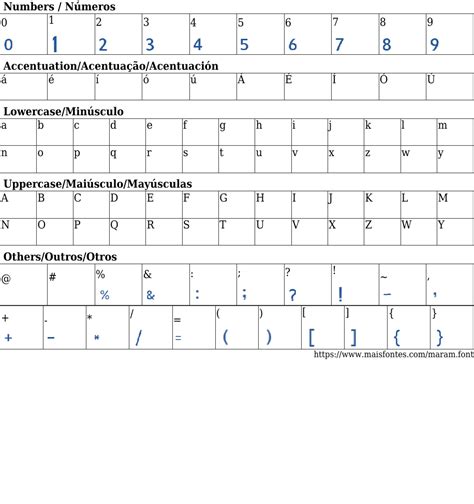
Unveiling The Beauty Of The Maram Font
Hey guys! Ever stumbled upon a font and just thought, “Wow, that’s beautiful”? Well, today, we’re diving deep into one such font: the Maram font . It’s more than just letters on a screen; it’s a piece of art, a form of expression, and a powerful tool for communication. We’ll explore what makes the Maram font so special, its origins, its uses, and why you might want to consider using it in your next project. Trust me, it’s a journey worth taking! So, buckle up, and let’s get started on understanding the Maram font .
Delving into the Details of Maram Font
Alright, let’s get into the nitty-gritty, shall we? The Maram font isn’t just a random collection of characters; it’s a meticulously crafted typeface. The name itself hints at its elegance and subtle charm. Maram, often associated with a sense of grace and refinement, perfectly encapsulates the font’s overall aesthetic. Its design typically features clean lines, balanced proportions, and a touch of sophistication that makes it stand out. Whether it’s the carefully considered curves of the lowercase ‘a’ or the assertive stance of the uppercase ’M’, every element is thoughtfully designed to create a harmonious visual experience. The designers often play with varying weights and styles, allowing for versatility in different applications, from bold headlines to delicate body text. Maram font often includes multiple weights, such as light, regular, and bold, to provide flexibility in your designs. Furthermore, the font family might include italic versions, offering even more options for emphasis and style. The spacing between the letters, also known as kerning, is usually adjusted to ensure readability and visual appeal. The font’s character set usually covers a wide range of glyphs, including numerals, punctuation marks, and special characters, offering comprehensive support for various languages and design needs. In other words, Maram font is more than just a font; it is a complete typographic system that gives designers a wide range of options to create unique and appealing designs. This thoroughness is a testament to the dedication of the creators and the intention to provide a user-friendly and visually pleasing tool. This attention to detail is something we can all appreciate! The goal is to make sure every element is just right, providing you with a seamless and enjoyable design experience. And let’s not forget how important legibility is! Maram font often prioritizes readability, which makes it perfect for long-form content.
Origins and Inspiration
Now, where did this beauty come from? The origins of the Maram font , like those of many other fonts, are rooted in the inspiration of its creators and the cultural influences around them. Designers are often inspired by historical calligraphy styles, modern design trends, or even the natural world. The creation of a font like Maram typically involves a team of designers, type specialists, and font engineers who bring their respective skills to the project. The journey from initial concept to the final product involves many iterations, each aimed at refining the font’s aesthetic and ensuring optimal functionality. The design process often begins with sketching and hand-lettering, where the initial letterforms are created. This initial stage allows the designers to experiment with various styles and explore different design possibilities. The next stage involves digitizing the sketches and converting them into vector-based outlines. This allows for precise control over the shape and form of each character. The designers then meticulously refine each character, adjusting the curves, spacing, and proportions to create a harmonious and visually appealing design. The creators of Maram font likely drew inspiration from a variety of sources. Traditional Arabic calligraphy, with its elegant curves and flowing strokes, might have had an influence, as well as the more contemporary design of sans-serif fonts. Also, it’s possible that the font was designed to convey a specific message or reflect a particular cultural heritage. Whatever the specific inspiration, the goal is always to create a font that is both aesthetically pleasing and functional, making it a valuable tool for designers and communicators. So, the development of Maram font is a testament to human creativity and the power of typography to shape our visual world.
Practical Applications: Where to Use Maram Font
Okay, so the font is beautiful, but where can you use it? The Maram font is incredibly versatile, making it suitable for a wide range of design projects. Its clean lines and elegant design make it an excellent choice for branding. The font can be used in logos, business cards, and other marketing materials to create a polished and professional look. It works really well in headlines, ensuring that your message grabs attention. Imagine using it on a website header or in a magazine, where it can provide a touch of sophistication. Also, it’s a good choice for body text, depending on the specific weight and style, it can be used for comfortable reading experiences. It’s often used in editorial design, such as books and magazines, where readability is crucial. Let’s not forget about websites and digital media! The Maram font can be used for website design, social media graphics, and other digital content, creating a cohesive and visually appealing experience for your audience. Furthermore, depending on the style and weight, the font can be used to add a touch of personality and flair to your presentations, brochures, and other printed materials. From invitations and greeting cards to posters and packaging design, the font can enhance any creative project. If you’re designing something that needs to look stylish and modern, then the Maram font is probably a perfect choice. Remember, the possibilities are endless! The key is to match the font’s style with your project’s overall message and aesthetic goals. Considering factors like legibility, tone, and the target audience will help you make the best use of this font.
Branding and Marketing
When it comes to branding and marketing, using the Maram font can really set you apart. Its clean and modern appearance can give your brand a professional and trustworthy image. Using a font that is visually appealing and consistent with your brand’s personality is crucial. The font can be used in your logo, website, and other marketing materials, creating a cohesive visual identity that makes your brand recognizable and memorable. In the world of marketing, first impressions are everything. The font helps to make your brand instantly recognizable and memorable. When your audience sees the same font across your marketing channels, it reinforces your brand identity and creates a feeling of professionalism and consistency. In marketing materials like brochures, advertisements, and social media posts, the Maram font can be used to create an attractive look. The font can enhance your headlines, calls to action, and body text, ensuring that your message stands out and is easy to read. In the digital world, Maram font can be used to design websites, create graphics for social media, and enhance the look of your digital marketing campaigns. A website with a consistent and well-designed font will create a positive user experience, encouraging visitors to explore your content and engage with your brand. To effectively use Maram font , consider the font’s different weights and styles. Use bolder weights for headlines and titles to attract attention, and lighter weights for body text to maintain readability. Consistent and well-executed branding with the Maram font will lead to greater brand recognition, increased customer engagement, and ultimately, success in the marketplace.
Choosing the Right Maram Font for Your Project
So, how do you pick the right Maram font for your project? Well, first things first, think about what you want to achieve. What is the overall tone or message of your project? Are you going for a classic, sophisticated look, or something more modern and playful? Then, consider the specific needs of your project. If you’re designing a logo, you might need a font that is bold and easily recognizable. If you’re designing body text, you’ll need a font that is readable and comfortable to read. The variety of weights and styles available in the Maram font family allows you to adapt to the specific needs of your project. Also, you must consider the design itself. The font’s legibility is essential. Ensure that the chosen font is easy to read, especially in small sizes or on screens. Experiment with different font sizes, line heights, and spacing to optimize readability. The font’s personality can impact the design. You need to ensure that the font aligns with the overall theme and message of your project. The Maram font includes a variety of options, from clean and minimalistic to more decorative styles. Testing is very important! Before you finalize your choice, test the font in your design. See how it looks in different contexts and how it works with other design elements. Also, you need to consider the availability and licensing of the font. Make sure that the font is available in the formats you need and that you have the right to use it for your project. Be careful and choose the right Maram font carefully; this will greatly improve the success of your design project.
Font Pairing and Design Principles
Alright, let’s talk about pairing the Maram font with other fonts and applying some basic design principles. Choosing the right font to pair with Maram font can enhance your project. If the Maram font is clean and modern, you might consider pairing it with a contrasting sans-serif font for headlines or a classic serif font for body text. The key is to create a visual hierarchy. The chosen font combination must work harmoniously to create a balanced and visually appealing design. When pairing fonts, it’s important to consider their characteristics. You might choose fonts that have contrasting personalities to create visual interest. Contrasting fonts will make your content more engaging. Also, you need to consider the design principles like hierarchy, contrast, and balance. Hierarchy involves organizing your text to guide the viewer’s eye. Using different font sizes, weights, and styles can create a visual hierarchy that highlights the most important information. The Maram font is perfect for creating headlines and titles, and the contrast between the headline and body text can make your content more readable. The Maram font also has a great balance. The overall visual weight of your design needs to be balanced. In terms of design, you must ensure that your design elements, like images and text, are balanced and don’t overwhelm the eye. You need to apply these principles to ensure that your design is visually appealing and communicates your message effectively. Ultimately, choosing the right fonts and applying design principles is essential to a successful project.
Conclusion: Embracing the Elegance of Maram Font
So there you have it, guys! The Maram font is more than just a typeface; it is a creative tool that offers a lot to the table. From its elegant design to its versatility, it is an excellent choice for a variety of design projects. Whether you are working on branding, website design, or editorial layout, this font can help you create visually appealing and engaging content. The right use of this font can enhance your designs and make them more successful. We’ve explored its origins, practical applications, and the various ways you can use it to create something unique. I hope that this article has inspired you to include the font in your next design project. Embrace its beauty, experiment with its styles, and let your creativity shine! Remember, the world of typography is vast and exciting. So, go out there, experiment, and have fun! Happy designing!